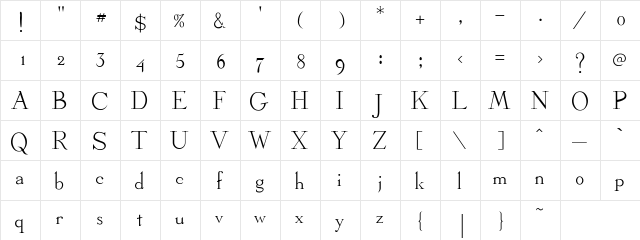
Stickee Regular
Design Context for Stickee Typeface
Stickee offers clean, dependable letterforms without strong stylistic allegiance, making it a practical choice for designers who need flexibility.